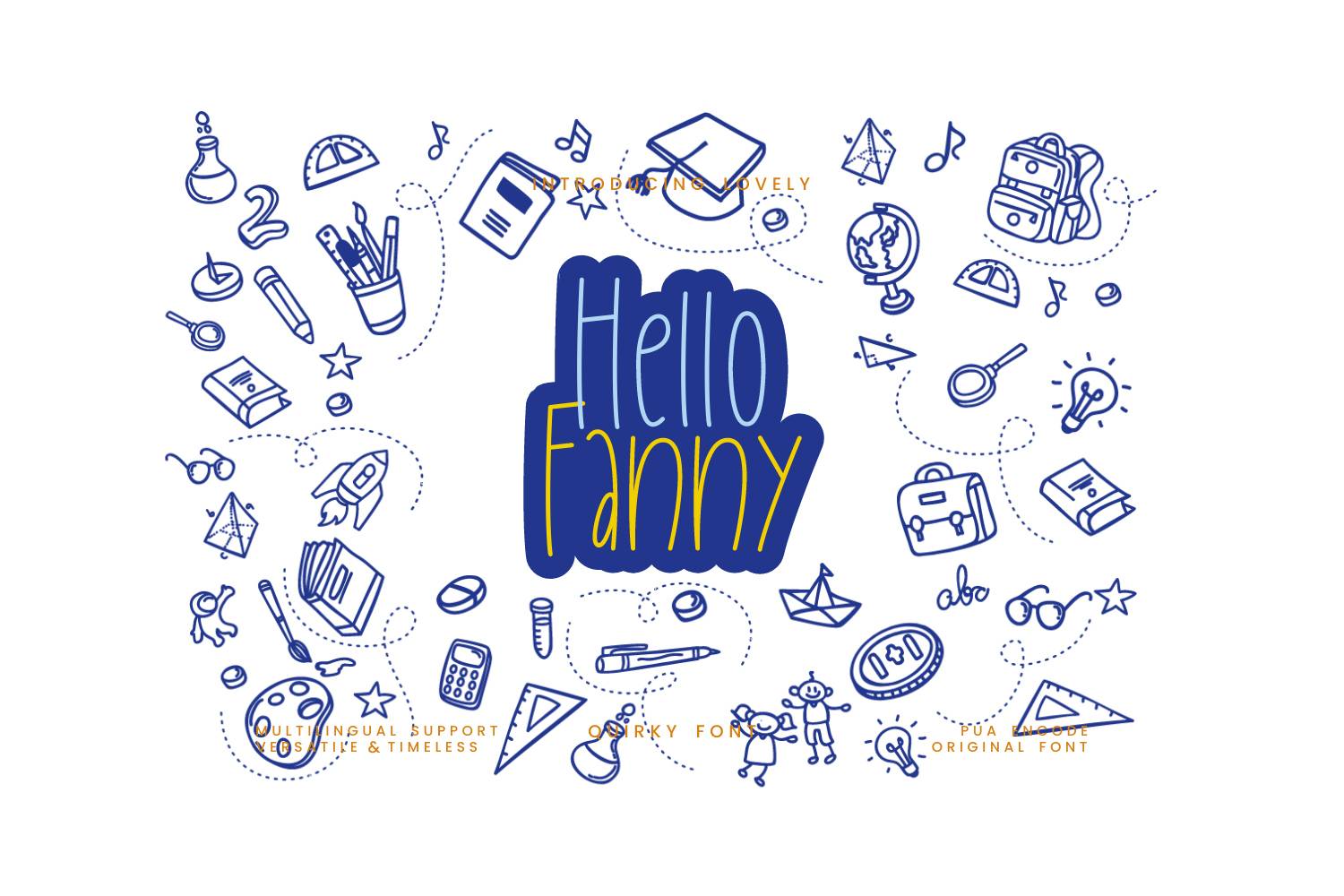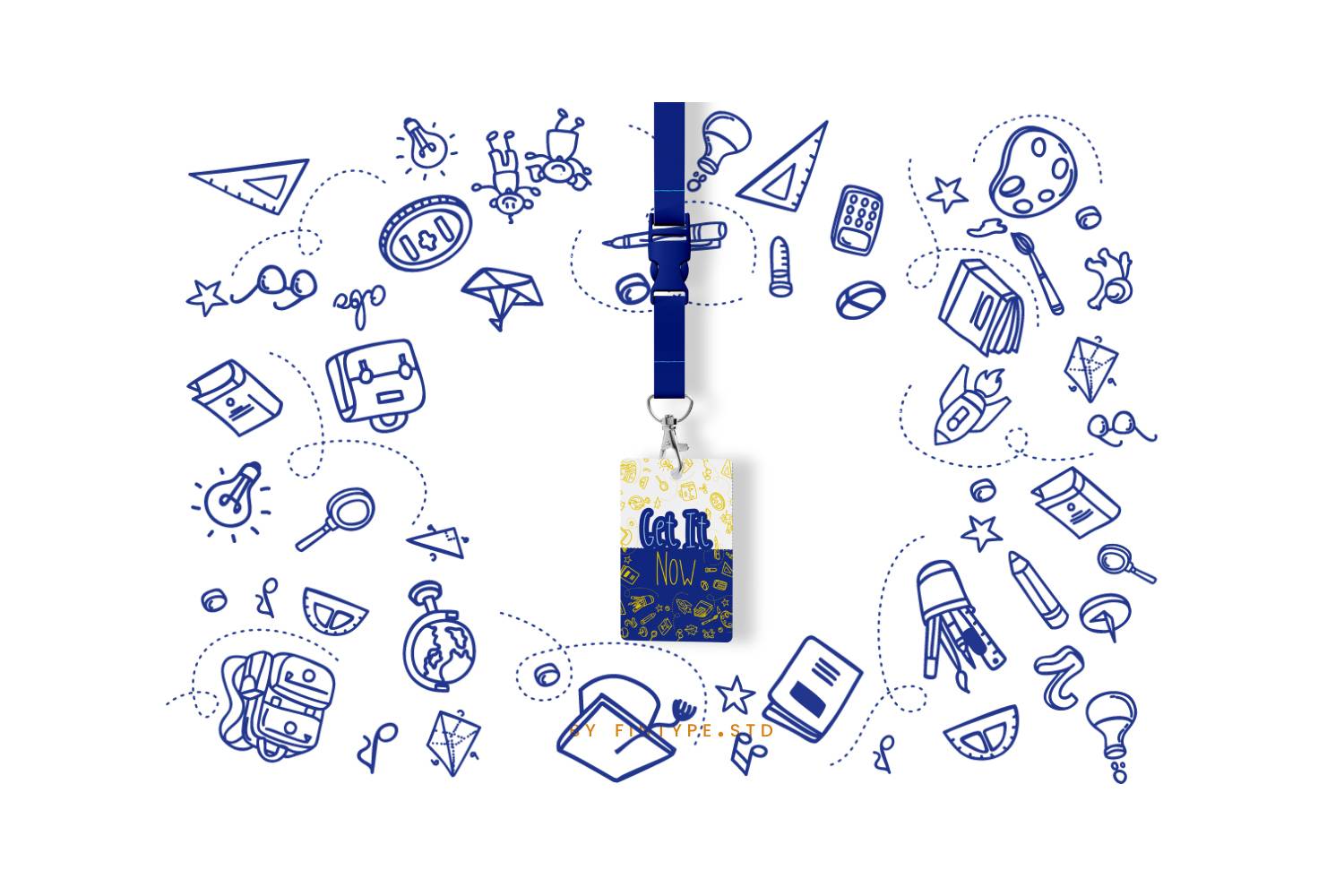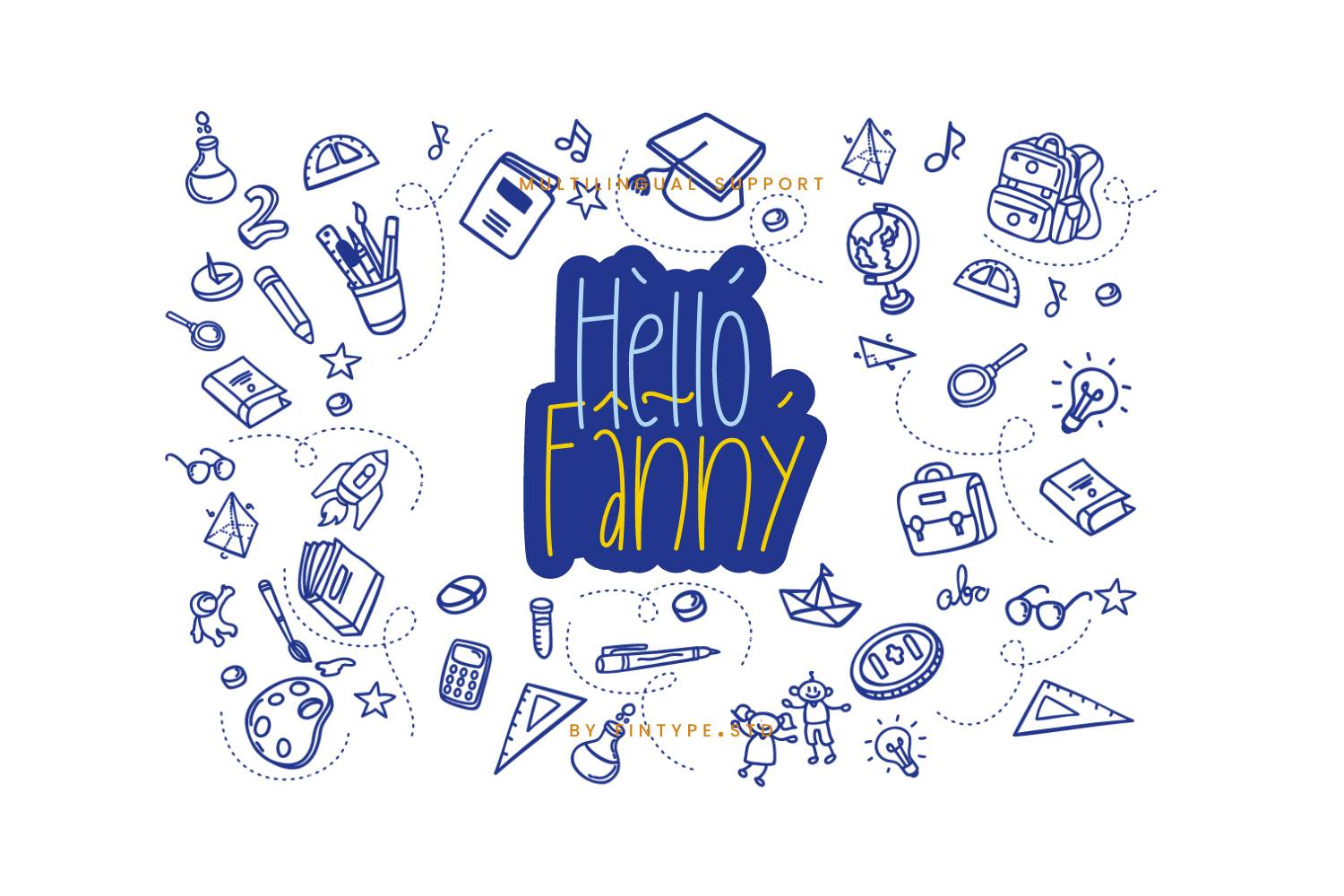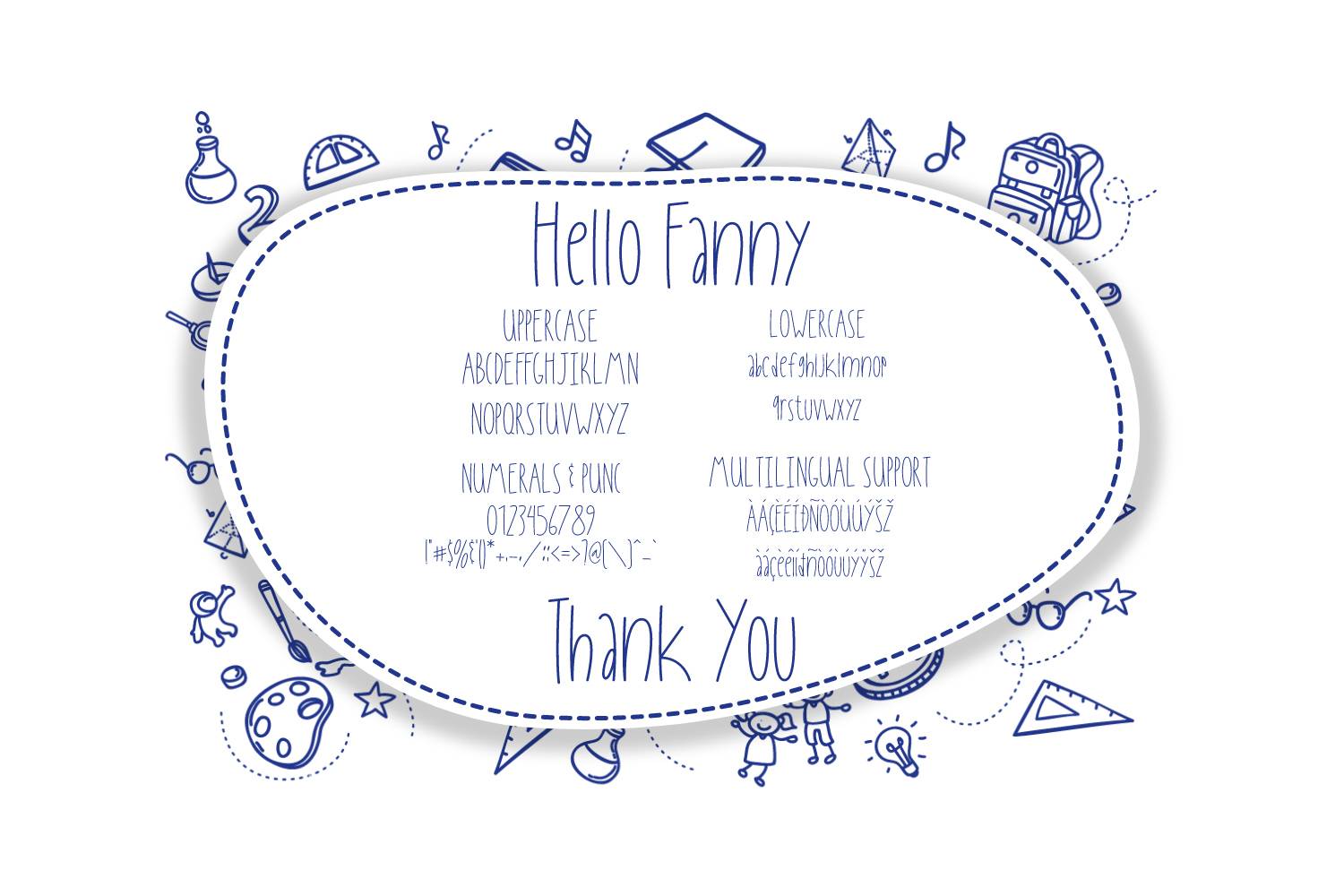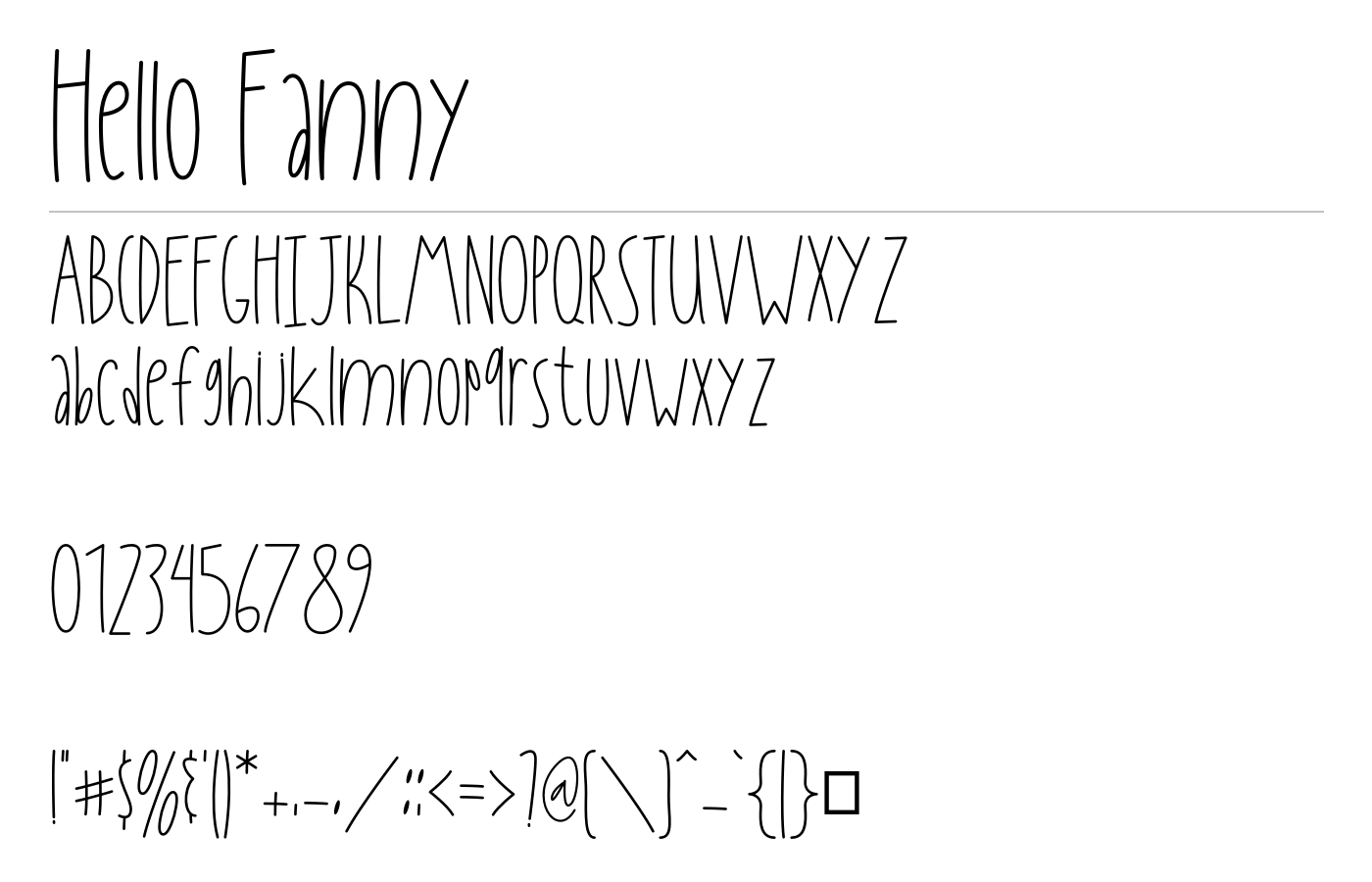
Hello Fanny is a playful, hand-drawn sans serif font characterized by its tall, narrow letterforms and delicate, irregular strokes that give it a casual and quirky personality. Its light weight and airy spacing make it ideal for creative projects, informal branding, and fun headlines where a friendly and approachable feel is desired. This font works well in designs that aim to convey uniqueness and a youthful, artistic spirit.
Hello Fanny Font
About Hello Fanny Font
| Font family | Hello Fanny Font |
| Designer | FinTypeStudio |